Cool Fonts Generator
200+ cool fonts for Instagram, TikTok, Discord, WhatsApp, and gaming — copy and paste instantly. Trendy Unicode styles, fancy letters, and unique symbols, all free.
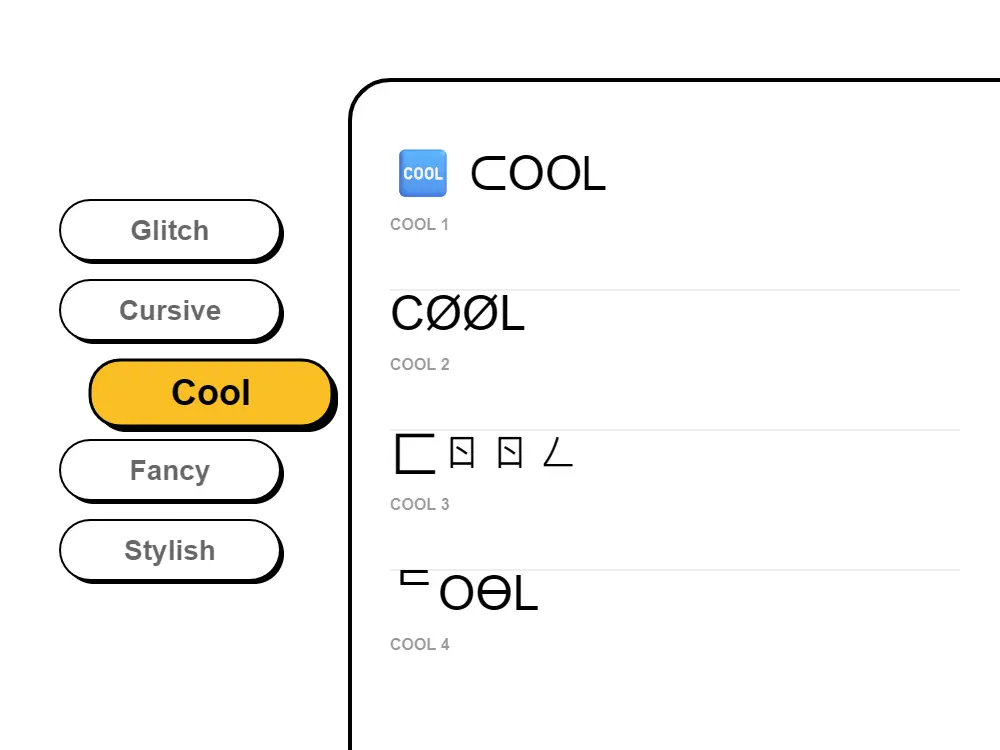
Cool Font Style Illustration
Cool Font Styles for
Every Platform.
Fontb's cool fonts span 200+ distinct Unicode styles, each with its own visual personality. Mathematical bold (𝗟𝗶𝗸𝗲 𝘁𝗵𝗶𝘀) gives usernames strong, attention-grabbing weight. Double-struck letters (𝕃𝕚𝕜𝕖 𝕥𝕙𝕚𝕤) produce the clean aesthetic look popular on Instagram and TikTok. Fraktur script (𝔏𝔦𝔨𝔢 𝔱𝔥𝔦𝔰) suits gothic, music, and gaming community profiles. Small caps (ʟɪᴋᴇ ᴛʜɪs) work across every platform — Discord, Roblox, and Steam included — with the widest device compatibility of any cool style. All 200+ styles generate simultaneously as you type, so you can compare every option side-by-side and copy the exact one that fits your profile in one tap.
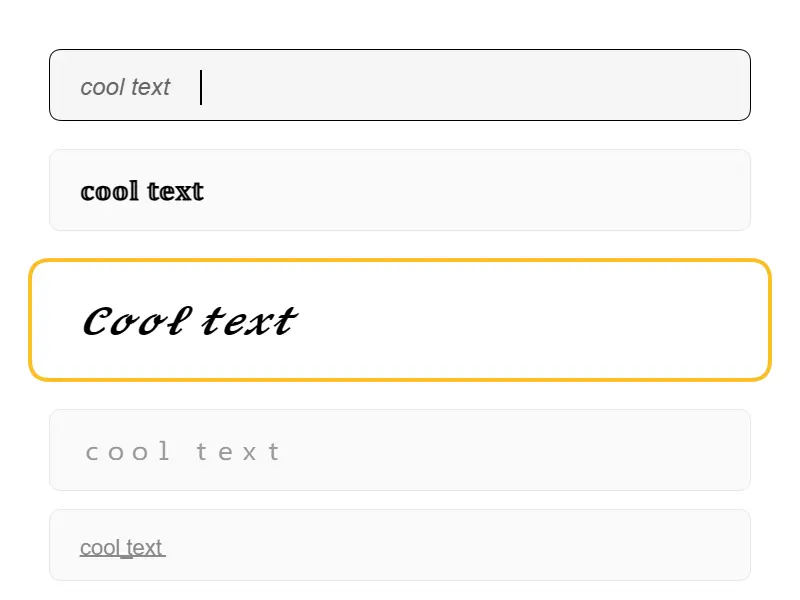
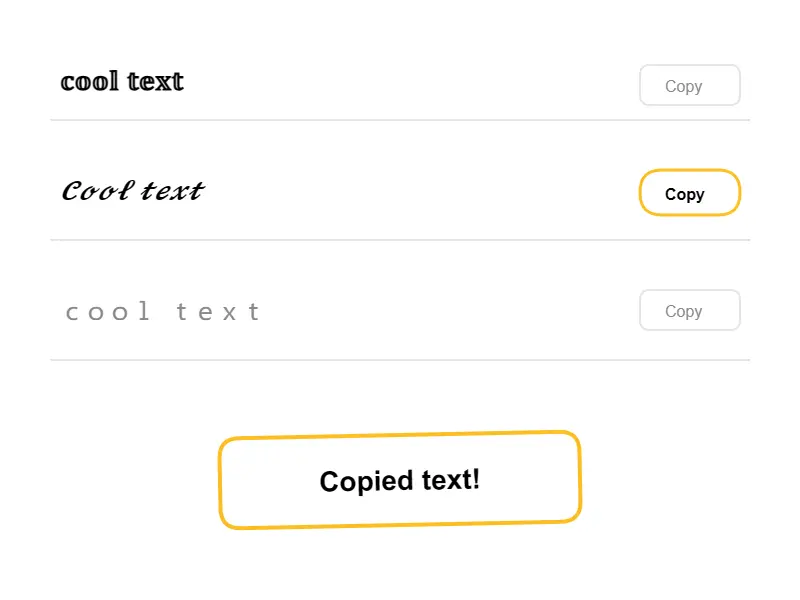
Browse aesthetic lowercase, bold symbols, fraktur, dotted text, monospace, small caps, and dozens more. Find the style that fits your vibe on Instagram, TikTok, Discord, or your gaming profile.
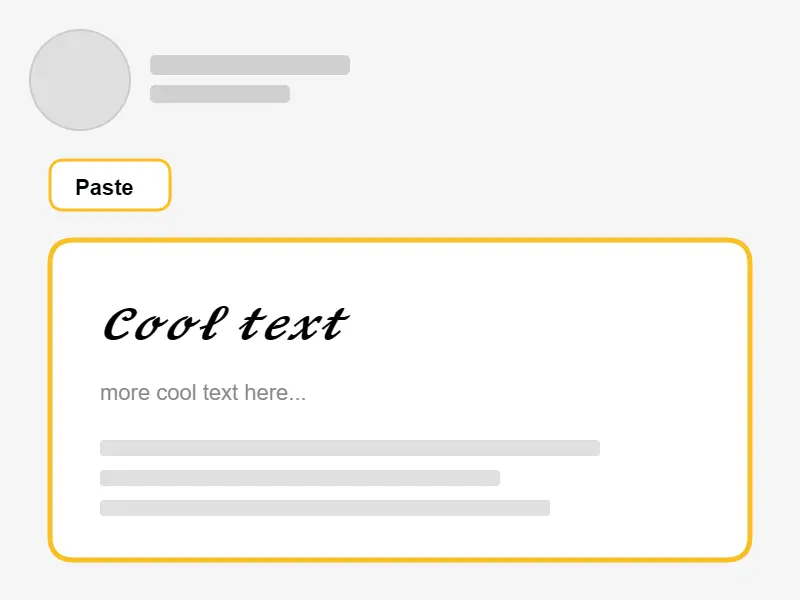
Cool fonts are the most-searched text style category online — everyone wants their username, bio, or caption to look effortlessly stylish and unique. Our cool fonts generator gives you 200+ trendy Unicode text styles in one place: aesthetic lowercase, modern blackboard bold, sleek thin letterforms, fraktur script, dotted text, monospace, small caps, and dozens of styles that have become staples of Instagram bios, TikTok profiles, Discord server names, and gaming usernames on Roblox, Steam, and more. Whether you're building a social media presence, styling a gaming profile, or just want your bio to stand out — cool fonts from Fontb are free, instant, and work everywhere.
All cool fonts here are Unicode-based, meaning they display identically on every device and platform — no font files to install, no platform-specific apps needed. Copy your favorite cool font from Fontb and paste it directly into your Instagram bio, TikTok username, Discord server name or nickname, Twitter/X display name, WhatsApp status, YouTube channel name, Twitch channel description, Roblox display name, or Steam profile. For gaming usernames specifically, bold Unicode (𝗹𝗶𝗸𝗲 𝘁𝗵𝗶𝘀) and small caps (ʟɪᴋᴇ ᴛʜɪs) have the widest cross-platform support across Discord, Roblox, Steam, and mobile games. One important note: cool Unicode fonts are made of special characters, not standard letters — which means screen readers for visually impaired users may struggle to read them aloud. If accessibility matters for your content, use cool fonts for decorative display text only (usernames, bios) rather than long paragraphs of important information.
Why Do Cool Fonts Copy and Paste Into Any App?
Cool fonts work because they use Unicode — the global text standard that defines every character on earth. Within Unicode, entire alphabets exist that look like different styles: mathematical bold letters like 𝗔, double-struck letters like 𝔸, fraktur like 𝔄, circled letters like Ⓐ, and dozens of aesthetic variations. These characters are built into every modern operating system at the OS level — meaning every iPhone, Android, Windows PC, and Mac already knows how to display them. When you copy a cool font from Fontb and paste it into Instagram, Discord, Roblox, TikTok, WhatsApp, or any other platform, the app simply renders the Unicode character it receives. The styled look travels with the text itself — no font installation, no special app, no platform workaround ever needed. That's why cool fonts from Fontb work on every platform: because they're actual Unicode text, not images or CSS styling. One note on compatibility: some very old Android devices or outdated OS versions may not include every Unicode block. If a cool font shows as boxes (called 'tofu'), try a different style — bold Unicode and small caps have the widest device support and are the safest choice for maximum compatibility.
What are cool fonts and how do they work?
Cool fonts are stylized Unicode text characters that look visually distinct from standard text — aesthetic lowercase, mathematical bold, fraktur, dotted letters, circled characters, small caps, and hundreds of other styles. They work because Unicode, the global text standard used by every phone and computer, includes multiple complete alphabets designed to look like different typographic styles. Our cool fonts generator converts your normal text into these Unicode variants instantly — no font file, no app, no sign-up. The styled result copies and pastes into any platform that supports standard text.
How do I add cool fonts to my Instagram bio or TikTok username?
To add cool fonts to Instagram: type your text in the generator above → choose a cool font style → click Copy → open Instagram → Edit Profile → tap the Bio field → long-press and tap Paste. For TikTok: same process, go to Profile → Edit Profile → tap Username or Bio → paste your cool font. Cool fonts display correctly on both iPhone and Android because they use Unicode characters that Instagram and TikTok render natively — no special app needed.
Do cool fonts work on WhatsApp and Telegram?
Yes — cool Unicode fonts work perfectly in WhatsApp statuses, display names, and messages. Paste a cool font into your WhatsApp "About" section (your status bio) or use it in messages and your contact name display. Telegram also fully supports Unicode cool fonts in display names, bio descriptions, and messages. For WhatsApp specifically, bold Unicode and aesthetic lowercase styles are the most popular because they display cleanly on all devices your contacts may be using.
What are the most popular cool font styles right now?
The most-used cool font styles in 2026 are: Mathematical Bold (𝗟𝗶𝗸𝗲 𝘁𝗵𝗶𝘀) — the most universally compatible, works on every platform; Small Caps (ʟɪᴋᴇ ᴛʜɪs) — popular for professional-looking usernames and clean bios; Double-Struck / Blackboard Bold (𝕃𝕚𝕜𝕖 𝕥𝕙𝕚𝕤) — aesthetic and distinctive, popular on Instagram and TikTok; Aesthetic Lowercase (𝓁𝒾𝓀𝑒 𝓉𝒽𝒾𝓈) — soft, handwritten look trending with Gen Z; Fraktur / Gothic (𝔏𝔦𝔨𝔢 𝔗𝔥𝔦𝔰) — strong, dark aesthetic popular in gaming and music communities. All of these are available for free in Fontb's cool fonts generator above.